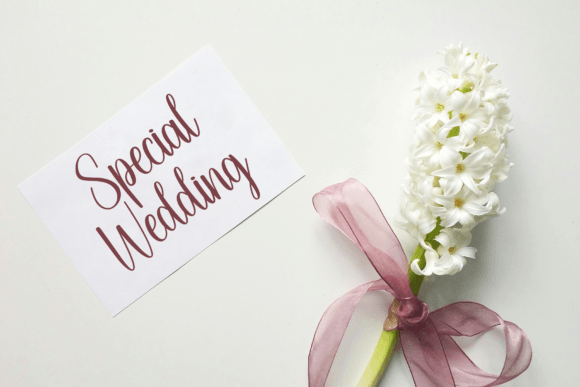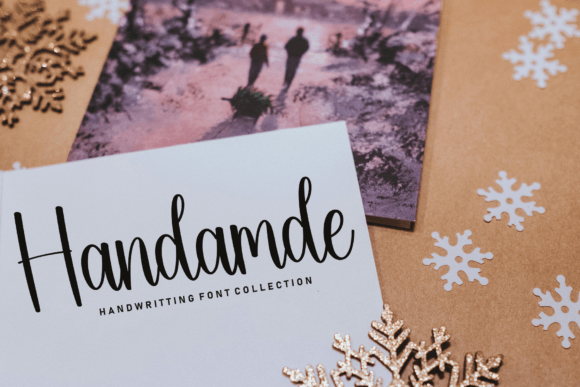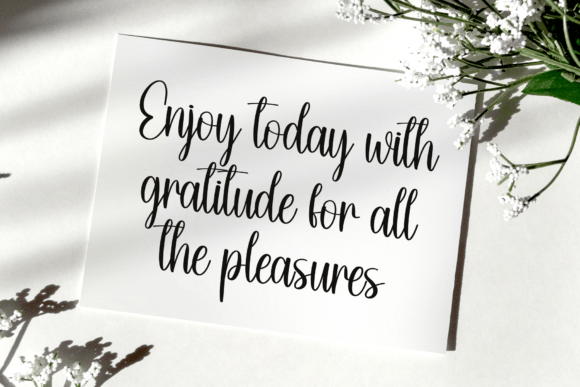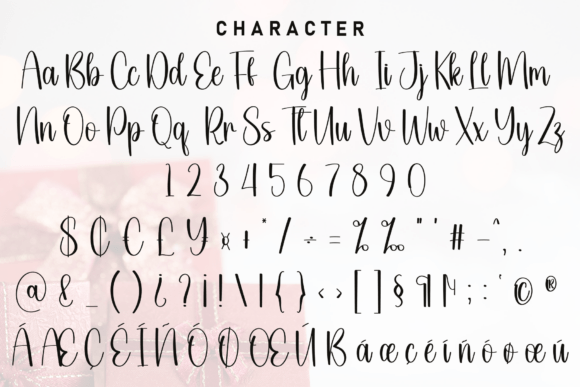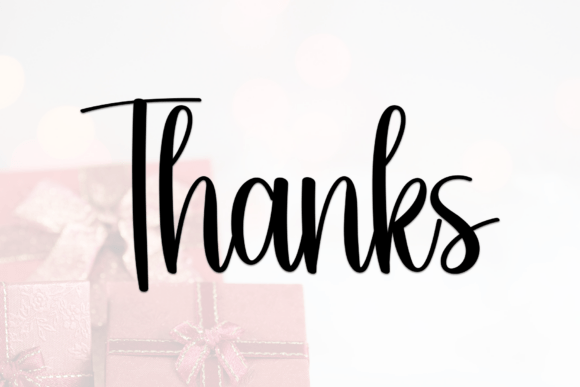
Introducing Happy Romance: The Charming Handwritten Font for Your Design Projects
Are you looking for a font that exudes warmth, comfort, and a sense of perfection? Look no further than Happy Romance, a beautiful handwritten font that is sure to capture the hearts of designers and crafters alike. With its smooth strokes and organic lines, Happy Romance is the perfect addition to any design project, from branding and invitations to social media graphics and more.
The Characteristics of Happy Romance
Happy Romance is a truly unique font that boasts a range of characteristics that set it apart from other fonts. Its smooth, flowing strokes evoke a sense of relaxation and calmness, making it perfect for designs that require a personal touch. The font’s organic lines and subtle imperfections give it a charming, handmade feel that is sure to resonate with audiences.
One of the standout features of Happy Romance is its versatility. The font is highly legible, making it suitable for use in a variety of contexts, from body text to headings and titles. Its elegant, cursive style also makes it perfect for use in designs that require a touch of sophistication and glamour.
Uses for Happy Romance
Happy Romance is a highly versatile font that can be used in a wide range of design projects. Here are just a few ideas to get you started:
- Branding: Use Happy Romance to create a unique and memorable brand identity that sets your business apart from the competition.
- Invitations: Add a touch of elegance and sophistication to your invitations with Happy Romance, perfect for weddings, parties, and other special occasions.
- Social Media Graphics: Use Happy Romance to create eye-catching social media graphics that are sure to grab the attention of your followers.
- Packaging: Add a personal touch to your product packaging with Happy Romance, perfect for food, beauty, and lifestyle brands.
Why Choose Happy Romance?
So why choose Happy Romance over other fonts? Here are just a few reasons:
- Unique and Memorable: Happy Romance is a truly unique font that is sure to make your designs stand out from the crowd.
- Highly Legible: The font is highly legible, making it suitable for use in a variety of contexts.
- Versatile: Happy Romance can be used in a wide range of design projects, from branding and invitations to social media graphics and more.
- Elegant and Sophisticated: The font’s elegant, cursive style makes it perfect for use in designs that require a touch of sophistication and glamour.
Tips for Using Happy Romance
Here are a few tips for getting the most out of Happy Romance:
- Experiment with Different Sizes: Happy Romance looks great in a variety of sizes, from small body text to large headings and titles.
- Pair with Other Fonts: Try pairing Happy Romance with other fonts to create a unique and eye-catching design.
- Use in Combination with Images: Happy Romance looks great when used in combination with images, particularly those with a natural or organic feel.
Happy Romance is a charming handwritten font that is sure to capture the hearts of designers and crafters alike. With its smooth strokes and organic lines, it’s perfect for a variety of design projects, from branding and invitations to social media graphics and more. Whether you’re looking to add a touch of elegance and sophistication to your designs or simply want to create something truly unique and memorable, Happy Romance is the perfect choice.